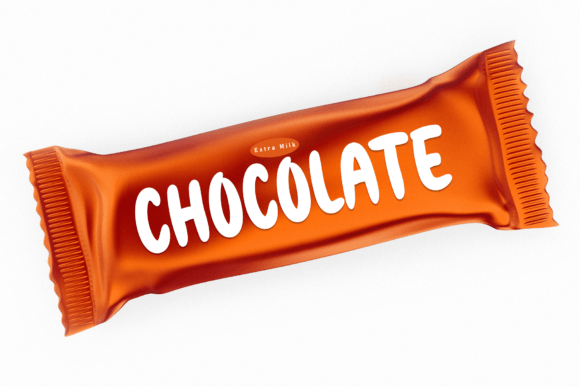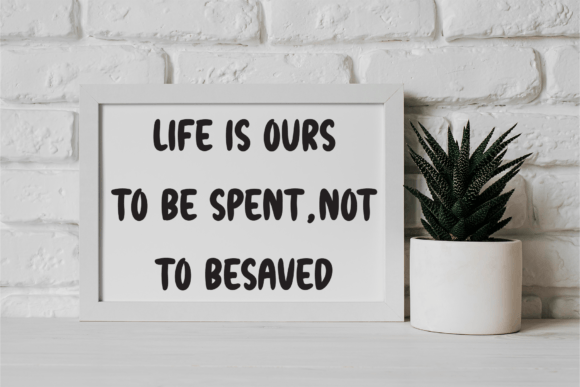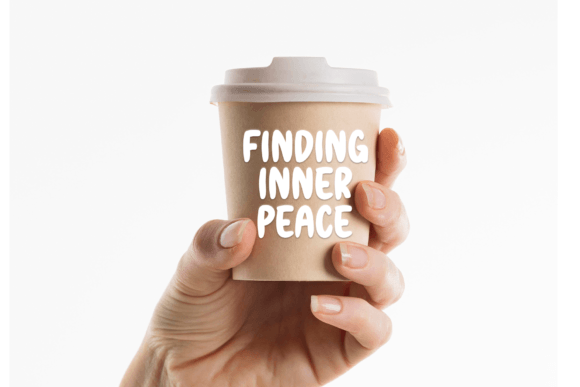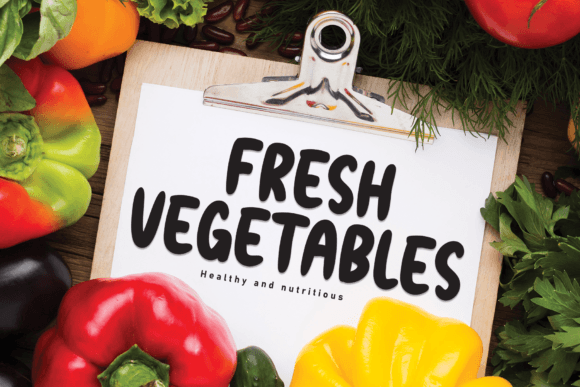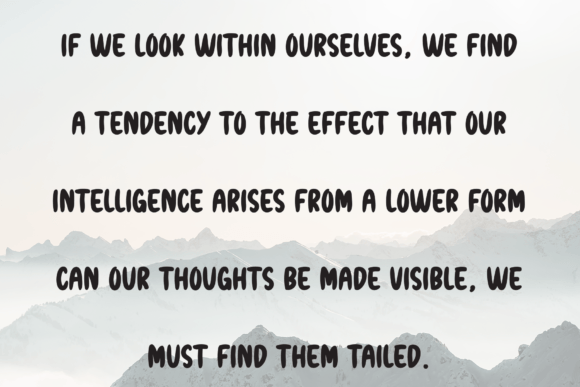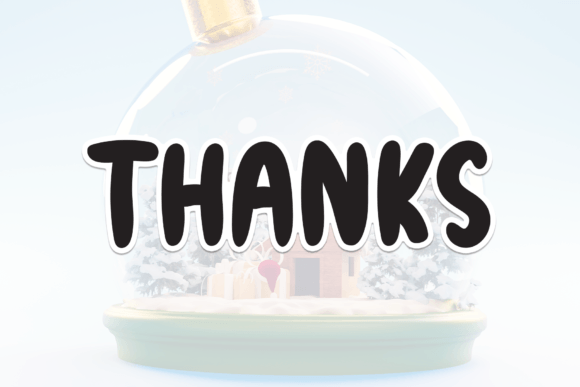
Bubble Christmas Font: Add a Touch of Whimsy to Your Designs
Are you looking for a font that can add a dash of fun and playfulness to your designs? Look no further than the Bubble Christmas font! This sweet and friendly handwritten display font is perfect for creating eye-catching wedding invitations, greeting cards, and other designs that require a touch of whimsy.
What is Bubble Christmas Font?
Bubble Christmas is a handwritten display font that features a unique bubble-like style, making it perfect for adding a fun and playful touch to your designs. The font is carefully crafted to resemble a child’s handwriting, making it both cute and endearing. With its sweet and friendly appearance, Bubble Christmas is sure to capture the hearts of your audience.
Key Features of Bubble Christmas Font
- Handwritten display font: Bubble Christmas is a carefully crafted handwritten font that features a unique and playful style.
- Cute and fun: The font’s bubble-like style makes it perfect for adding a touch of whimsy to your designs.
- Ideal for wedding invitations and cards: The font’s sweet and friendly appearance makes it perfect for creating eye-catching wedding invitations, greeting cards, and other designs.
- Easy to read: Despite its playful style, Bubble Christmas is easy to read, making it perfect for use in a variety of designs.
Uses of Bubble Christmas Font
Bubble Christmas font is a versatile font that can be used in a variety of designs, including:
- Wedding invitations: Add a touch of whimsy to your wedding invitations with Bubble Christmas font.
- Greeting cards: Create eye-catching greeting cards for special occasions like Christmas, birthdays, and anniversaries.
- Party invitations: Use Bubble Christmas font to create fun and playful party invitations for kids and adults alike.
- Social media graphics: Add a touch of personality to your social media graphics with Bubble Christmas font.
- Branding and packaging: Use Bubble Christmas font to add a touch of whimsy to your branding and packaging designs.
Tips for Using Bubble Christmas Font
Here are some tips for using Bubble Christmas font in your designs:
- Use it sparingly: Bubble Christmas font is a display font, so use it sparingly to add emphasis to your designs.
- Pair it with other fonts: Pair Bubble Christmas font with other fonts to create a unique and visually appealing design.
- Experiment with colors: Experiment with different colors to find the perfect combination that matches your brand or design.
- Use it for headings: Use Bubble Christmas font for headings and titles to add a touch of whimsy to your designs.
In conclusion, Bubble Christmas font is a sweet and friendly handwritten display font that is perfect for adding a touch of whimsy to your designs. With its unique bubble-like style and cute appearance, it’s ideal for creating eye-catching wedding invitations, greeting cards, and other designs. Whether you’re a designer or crafter, Bubble Christmas font is sure to become a favorite in your collection.